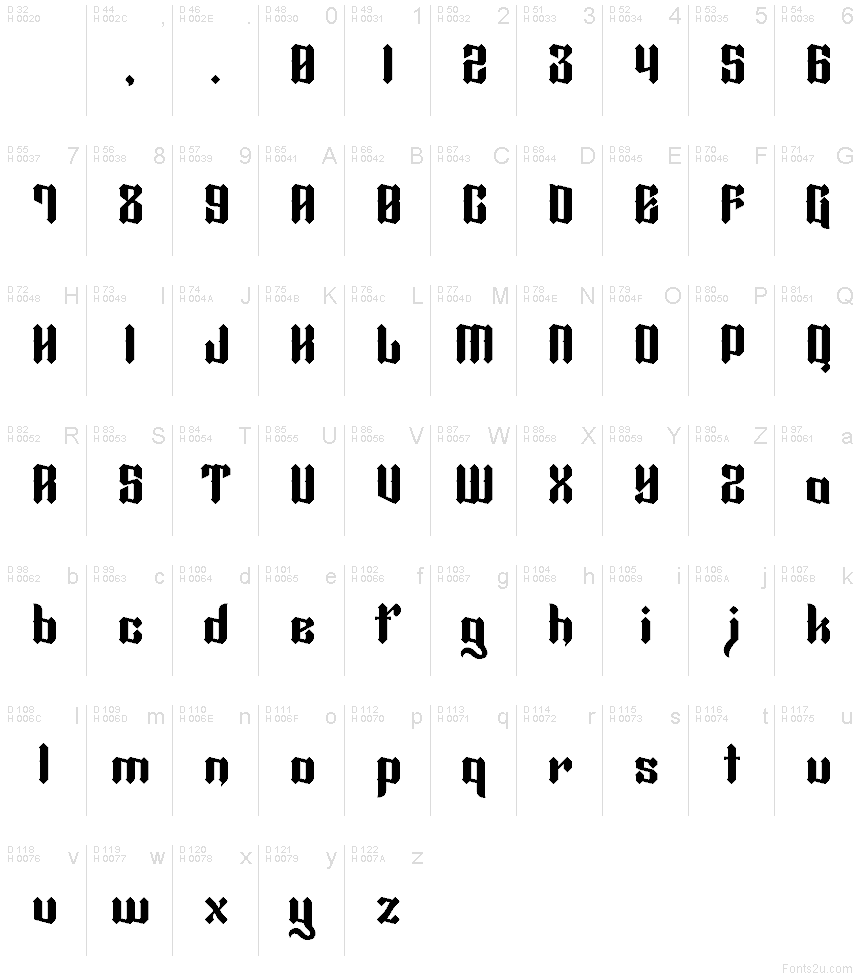
CS-Glare-Trial
CS Glare font is a gothic typeface developed by Ash Lane of Cedilla Studio as a modern take on medieval styles. The set carries elements often found in traditional gothic fonts including delicate letterforms and decorative touches that add personality to large scale typography designs. Inspired by the long history of such characters, this selection embraces its distinctive charm.
Projects dealing with history, medieval themes, or aesthetics that wish to convey a darker tone may consider making use of these letters. Common uses include games and movies set in ancient times, digital artwork for music covers, book covers for historical fiction, comics and graphic novels covering fantasy stories, or similar.